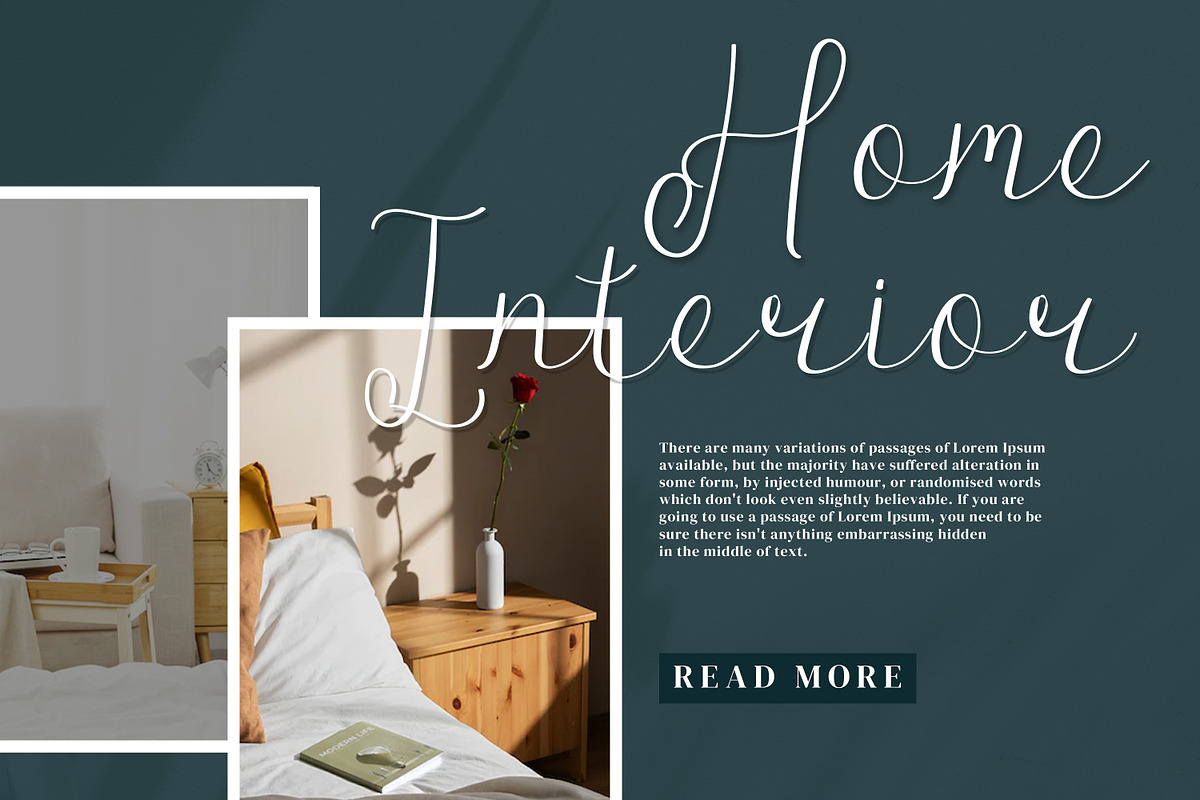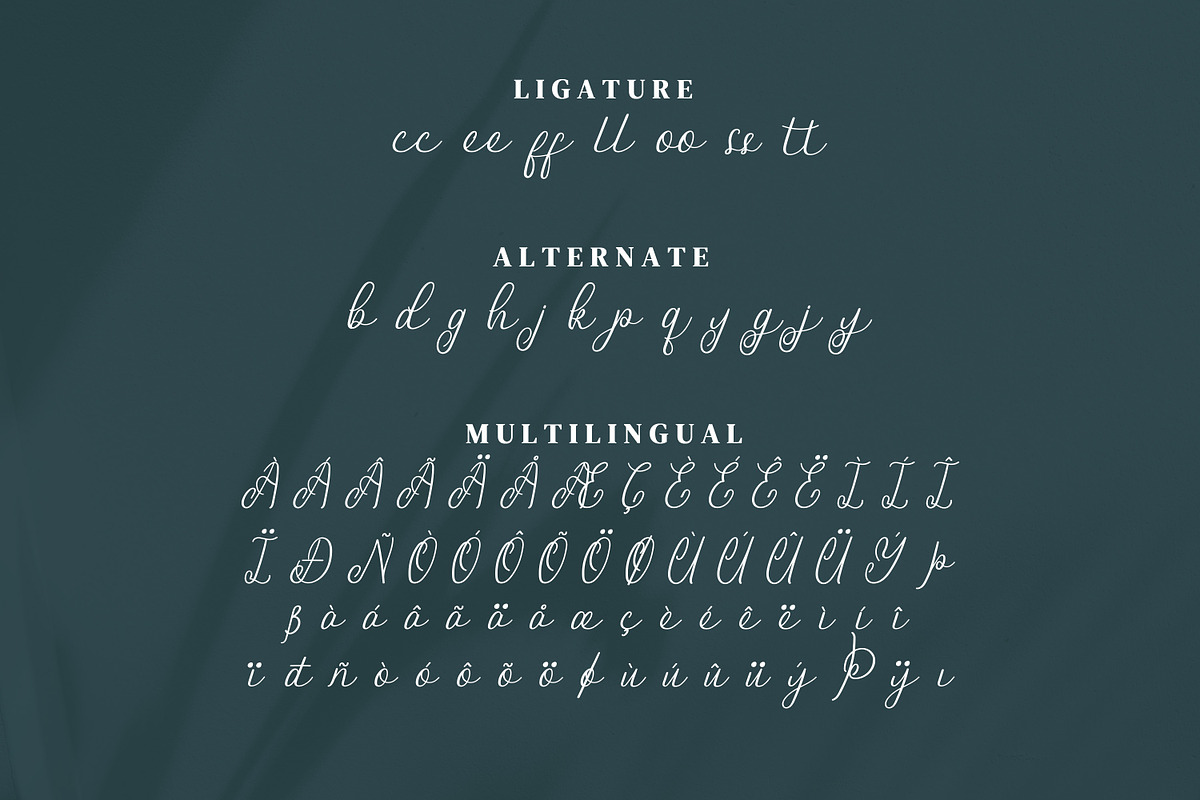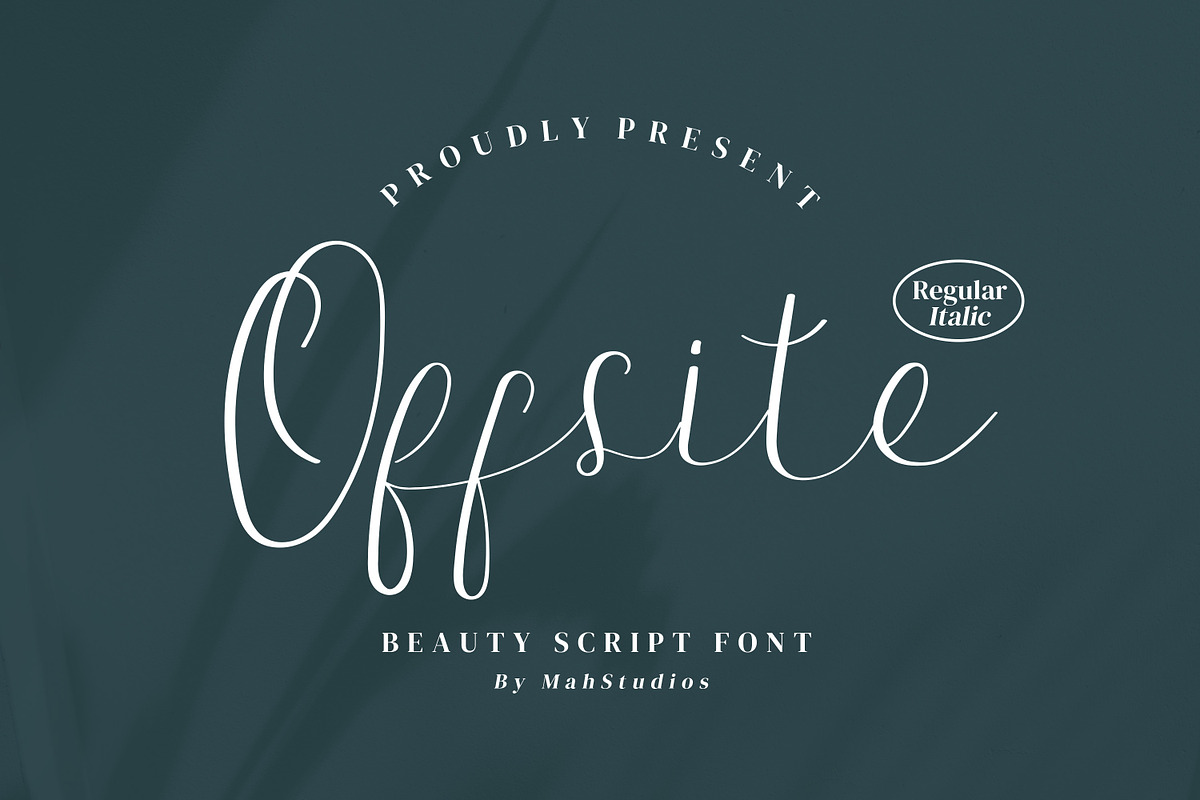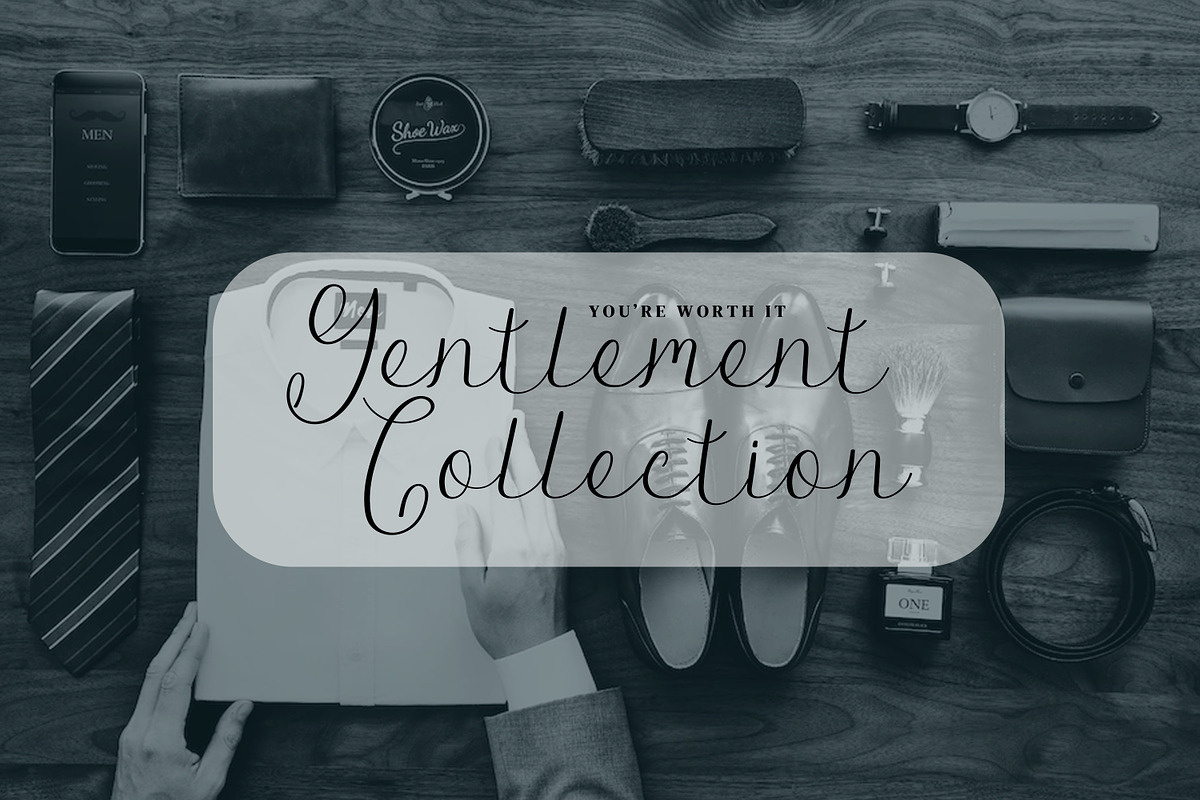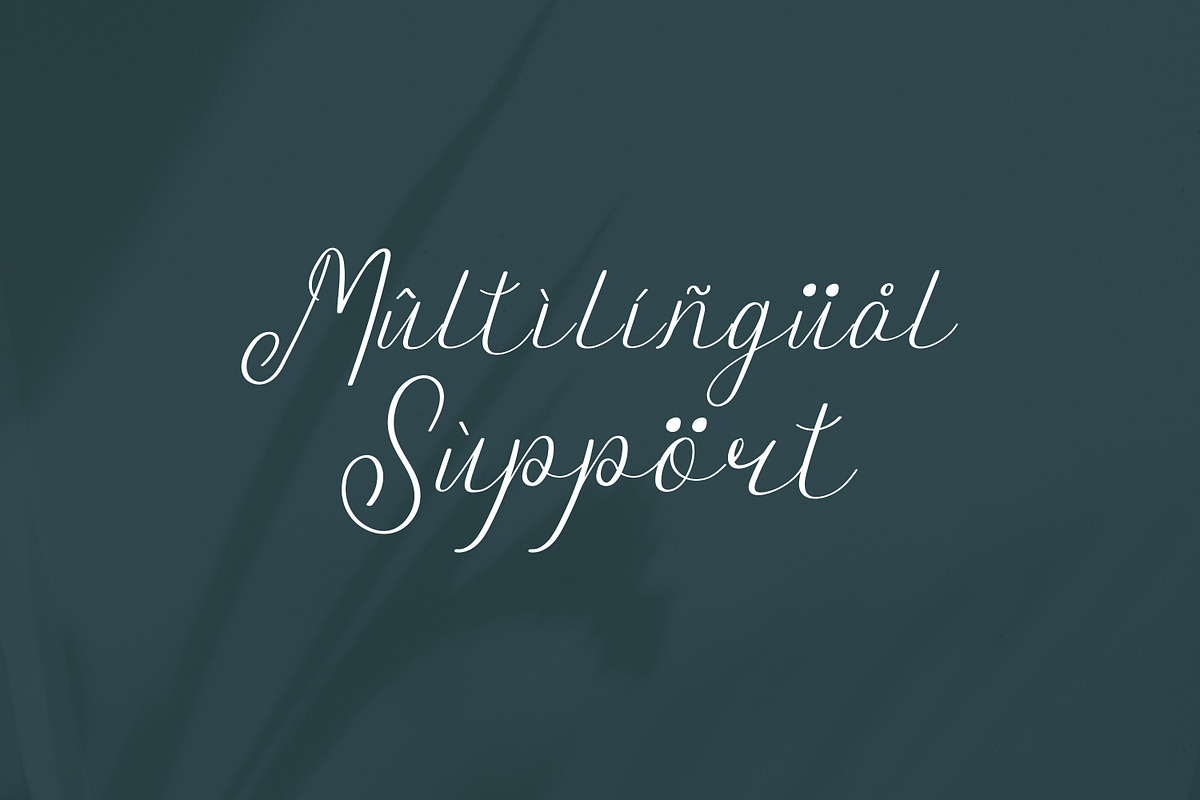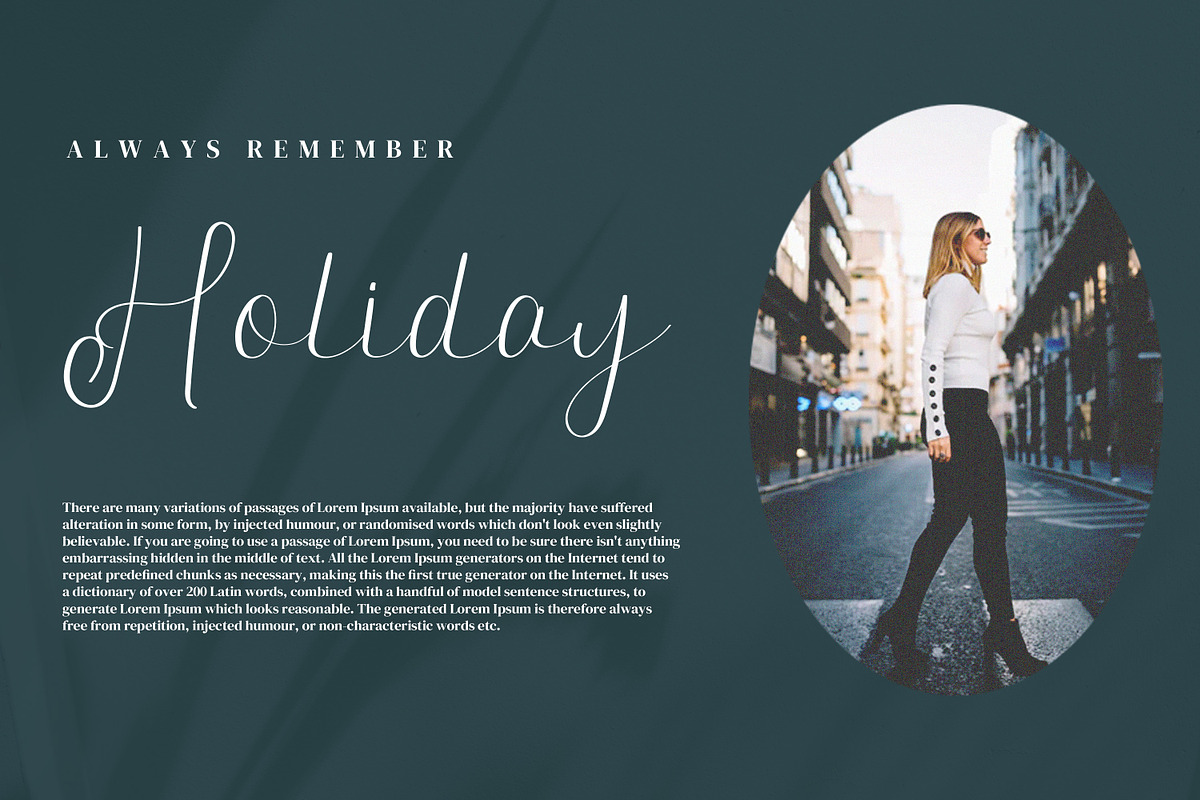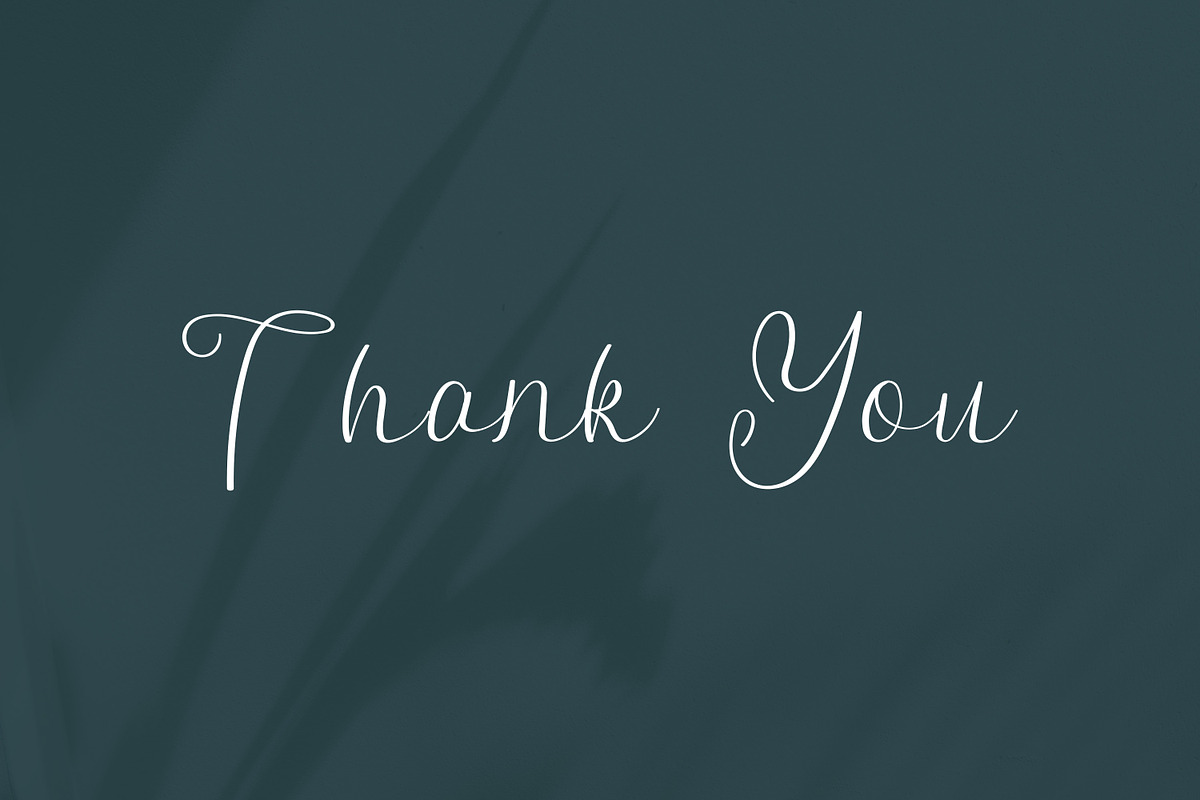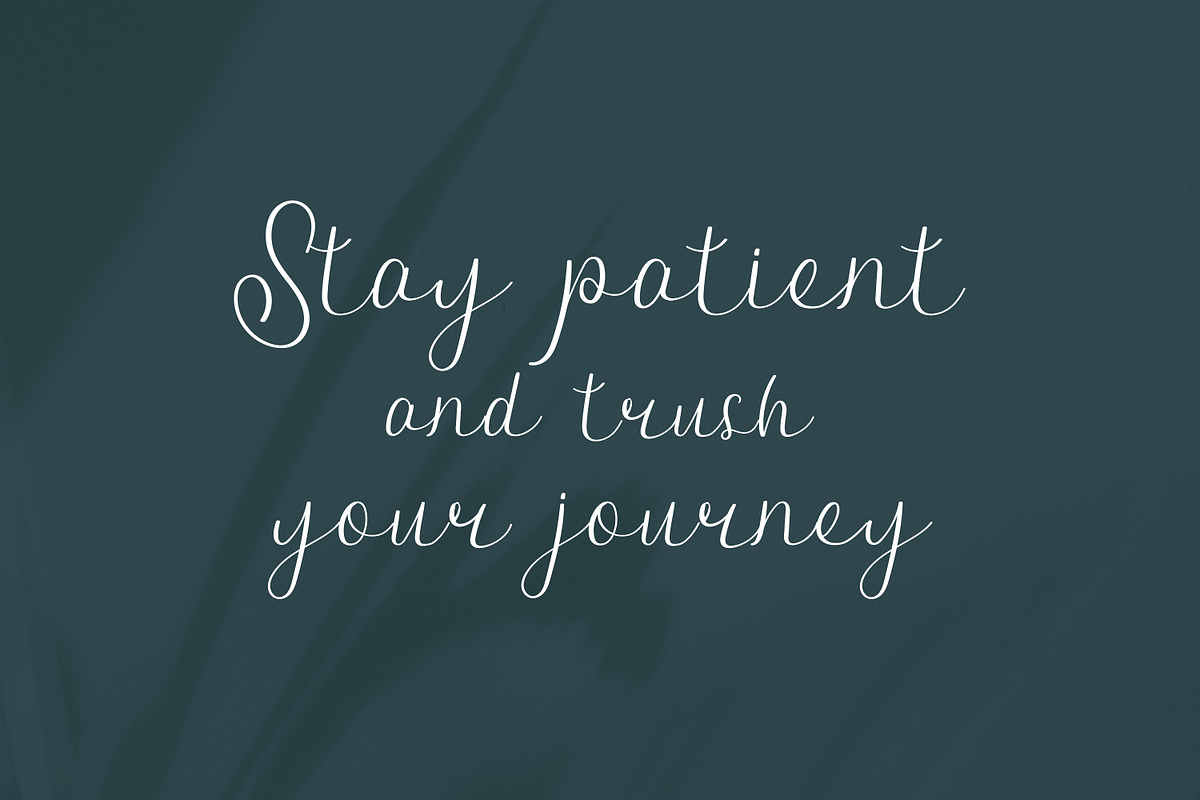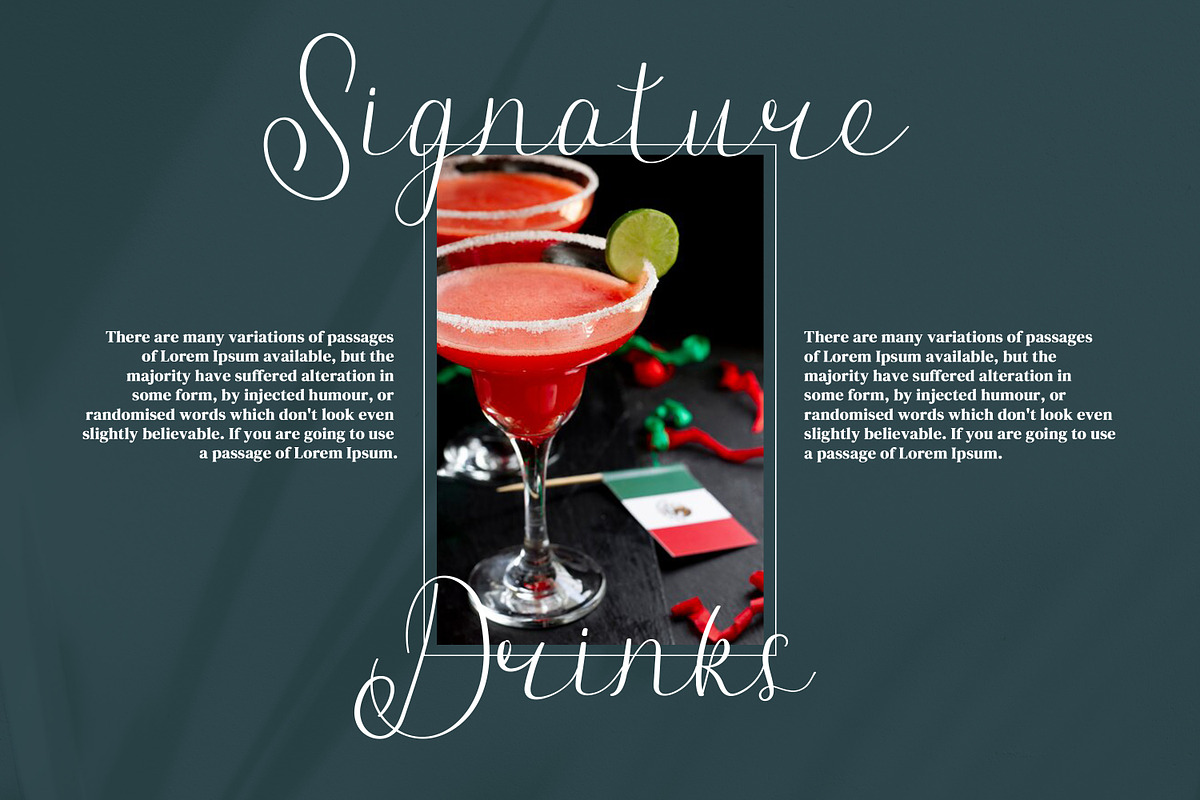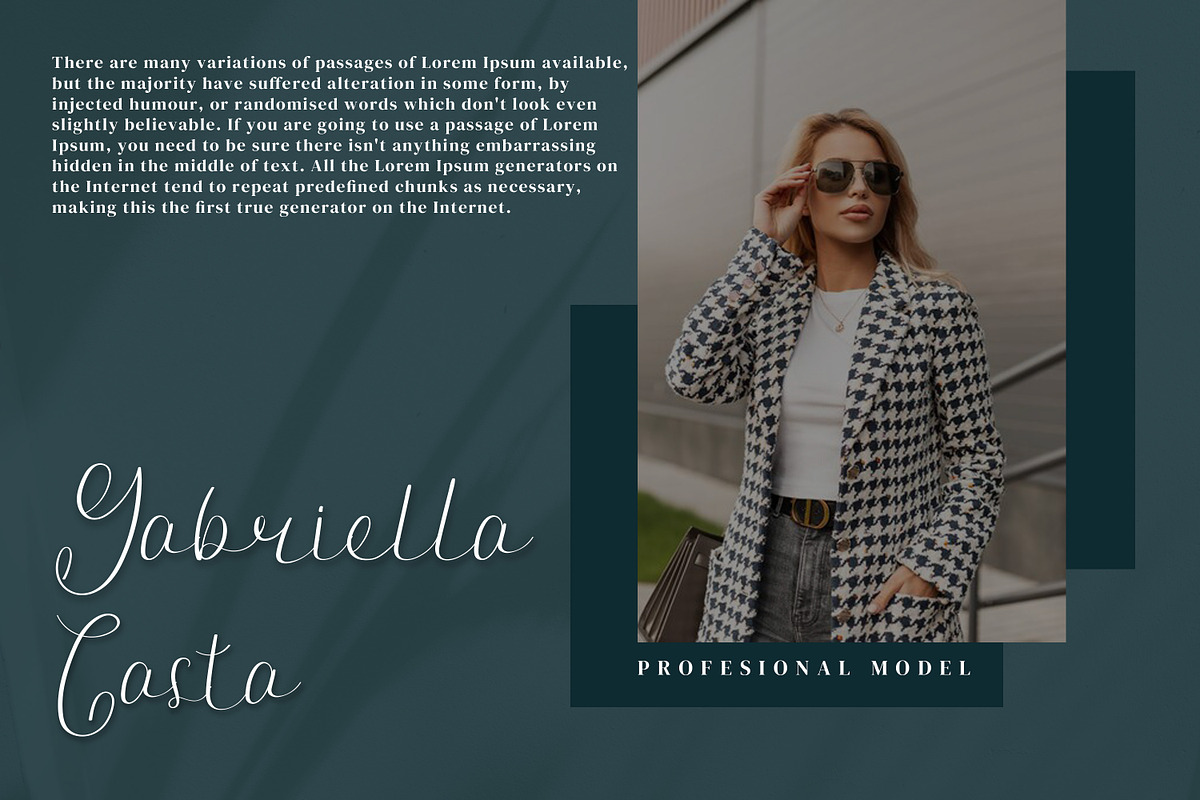
Offsite Script Fonts
Hi all! We introduce our modern font, designed with heart to produce a beautiful and modern font that anyone who uses it will fall in love with.
Features: Uppercase and Lowercase Punctuation (Open Type Standard) Accents (Multilingual Characters) Ligatures and Alternatives Works on PC and Mac Simple installation.